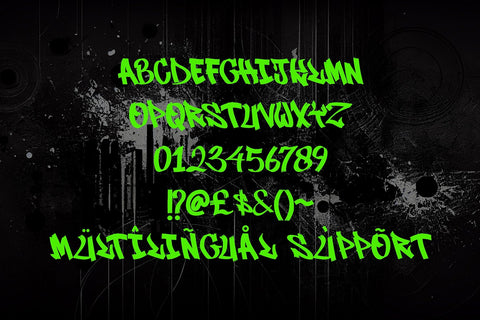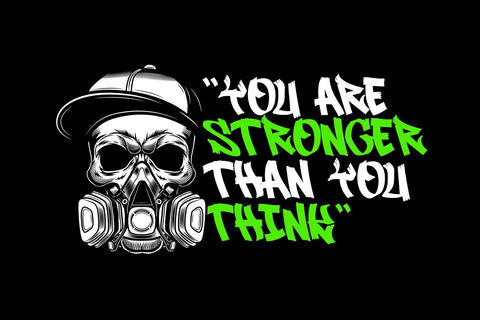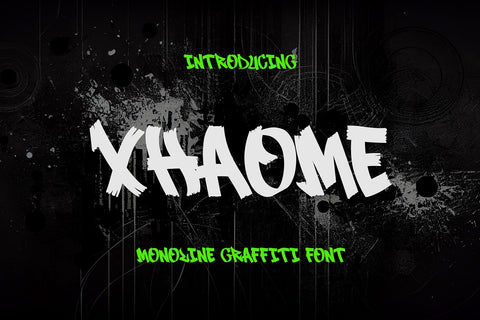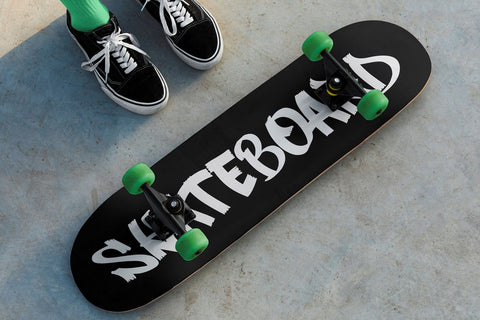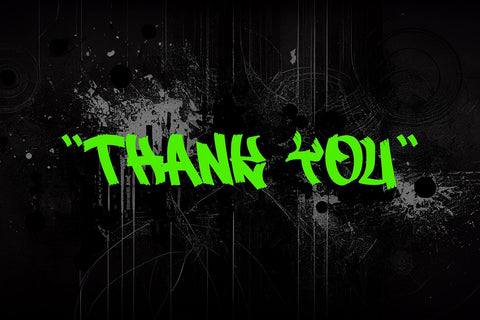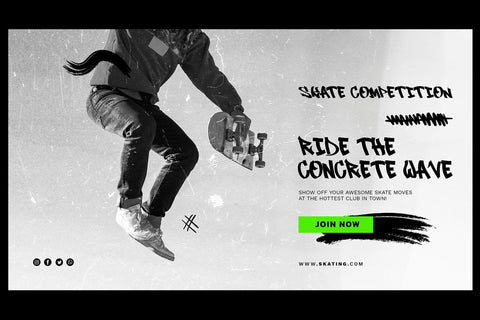
Xhaome - Graffiti Script Font
"Xhaome" is a captivating monoline graffiti font infused with the natural texture of a brush stroke. This dynamic typeface combines the raw energy of street art with the organic flow of hand-drawn brushwork. With its edgy and gritty aesthetic, "Xhaome" captures the essence of urban chic and adds a touch of expressive authenticity to any design. Perfect for projects that demand bold and dynamic typography, this font brings a raw urban vibe to posters, branding, apparel, and more, making it an ideal choice for designers seeking to infuse their work with urban flair and attitude.
- Graffiti Characters looks